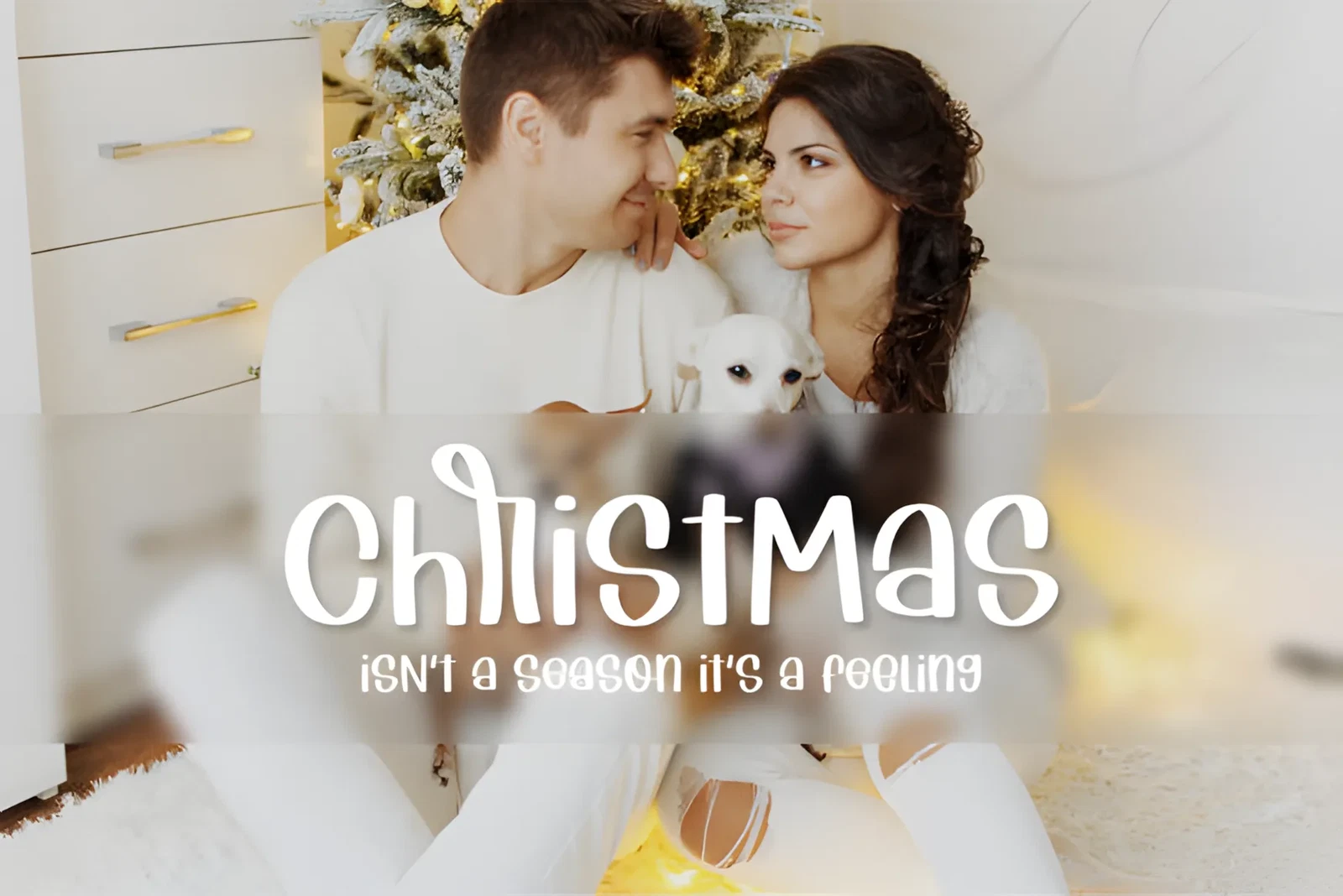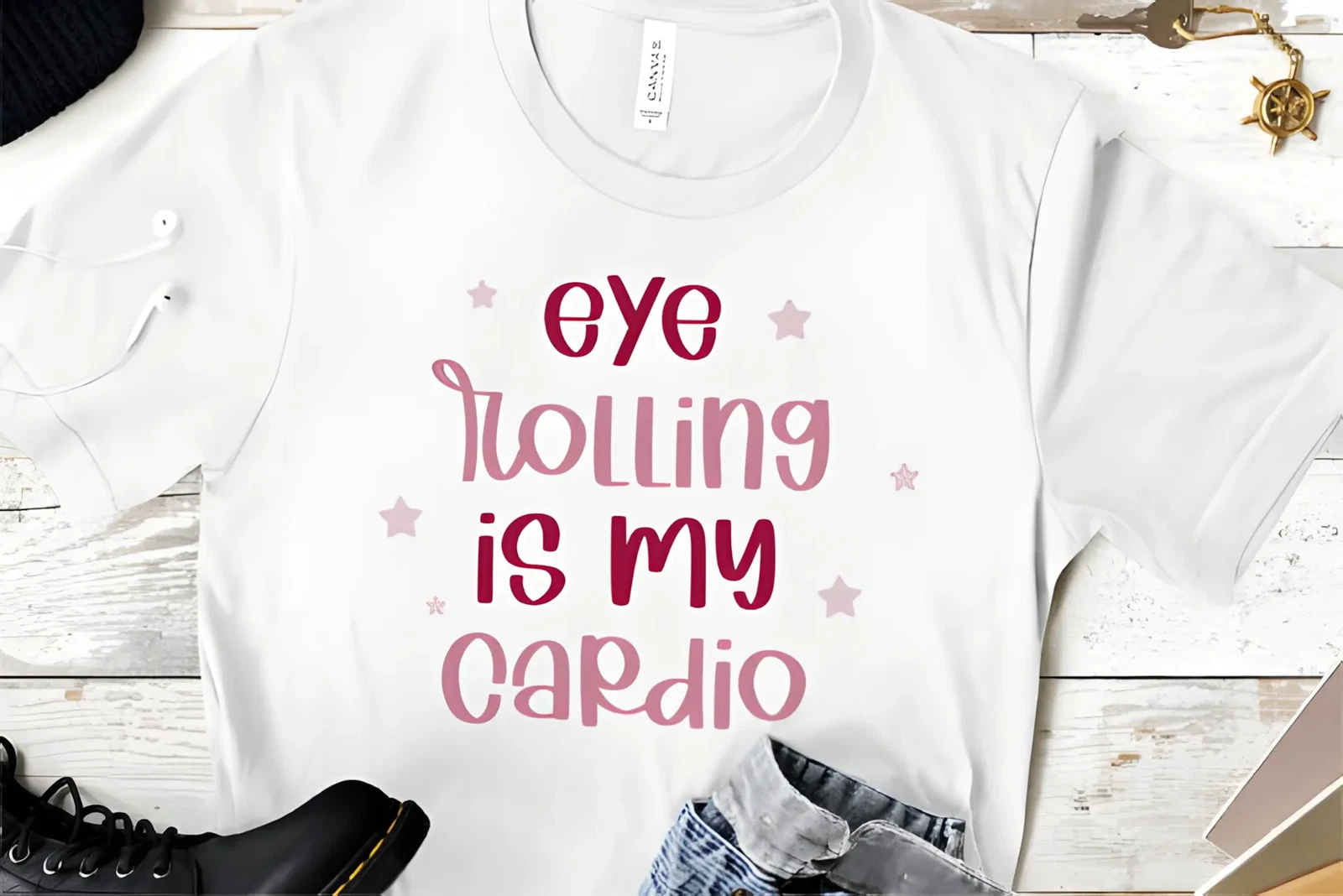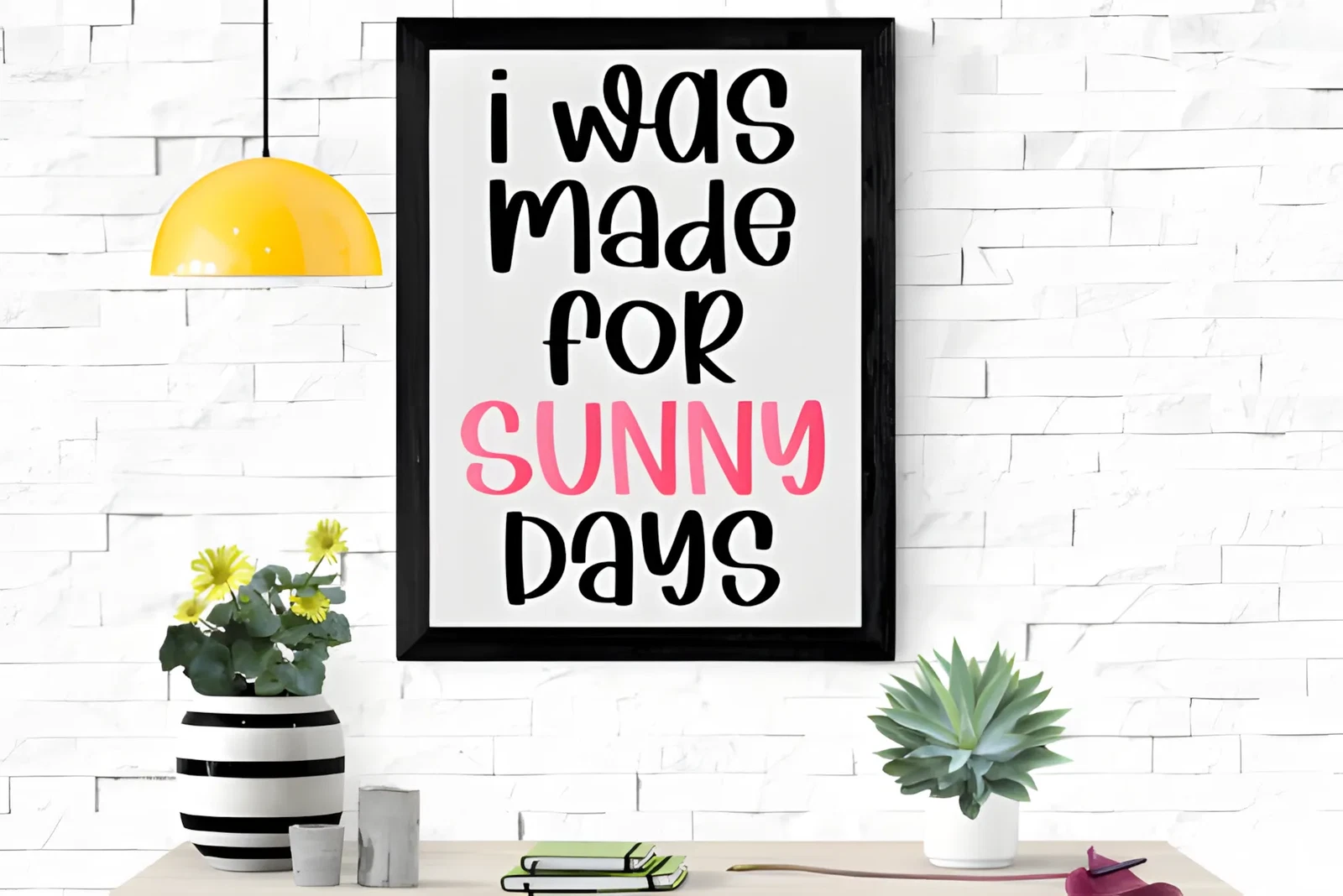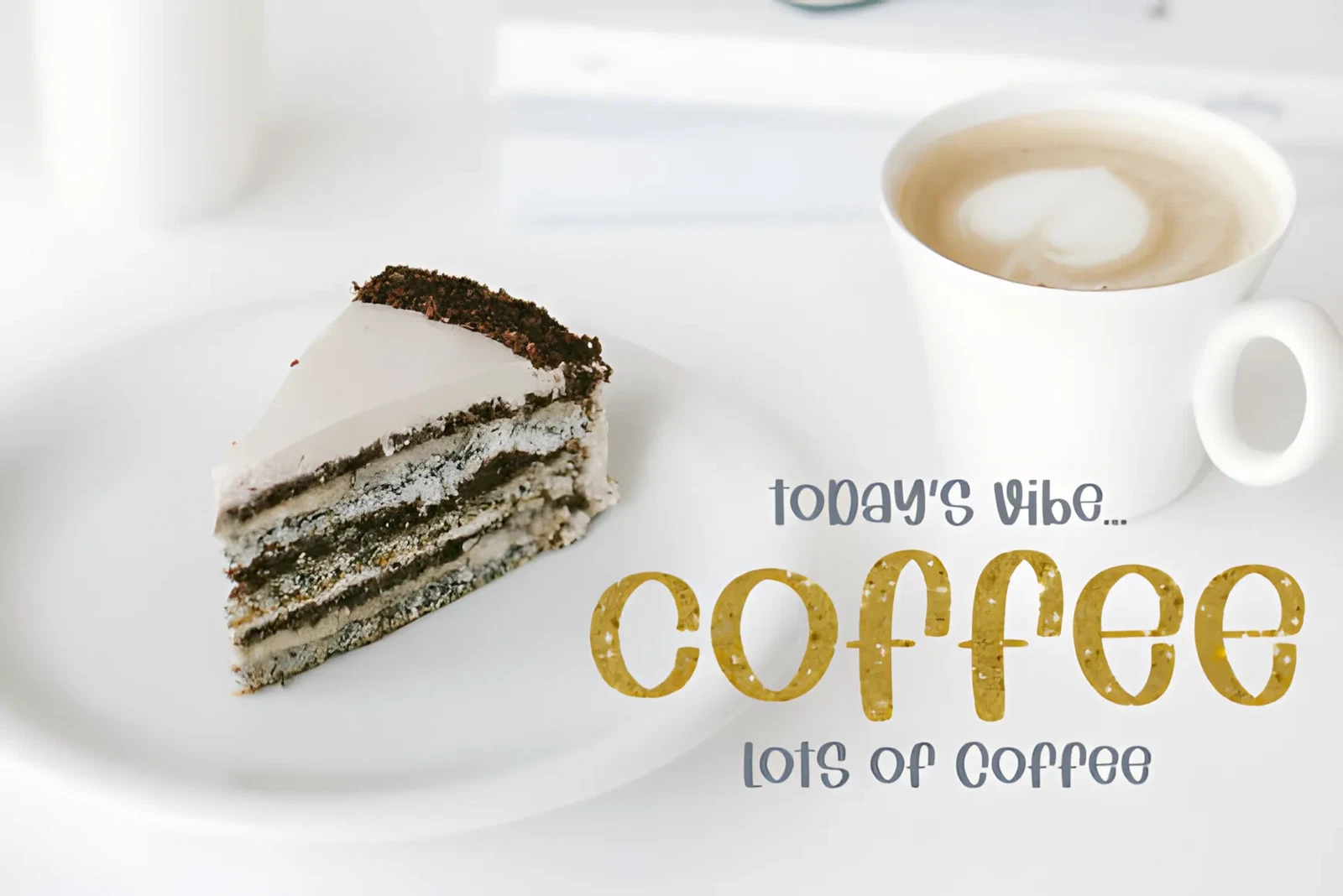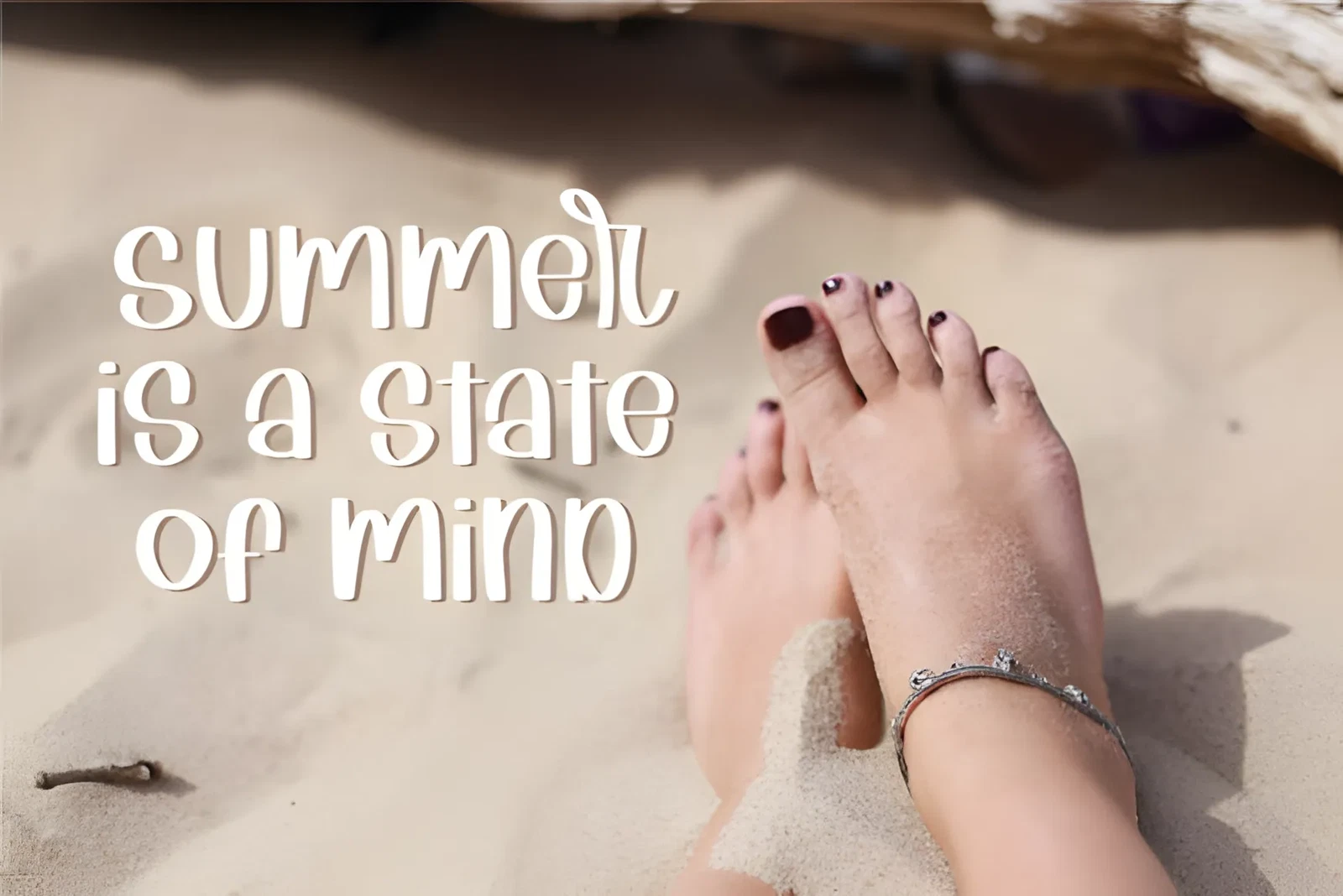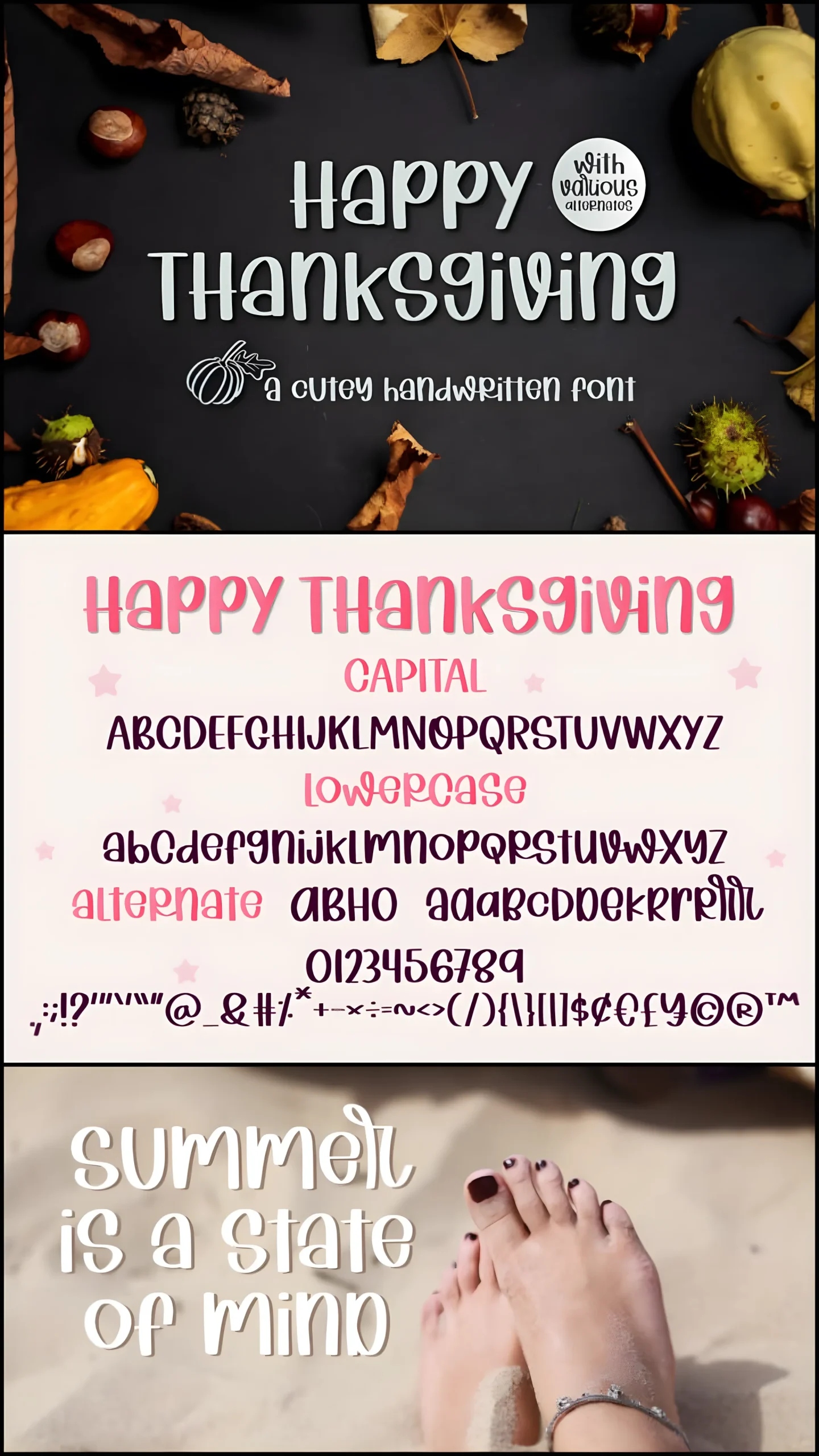
Some seasonal fonts try to look decorative first and readable second. Happy Thanksgiving Font takes the opposite approach. It is a cute and neat handwritten typeface designed to feel natural, friendly, and easy to read while still carrying a clear holiday mood.
The font combines simplicity with personality, making it suitable for a wide range of Thanksgiving and fall-themed projects. Its handwritten style feels warm and personal, as if each word was written by hand rather than generated digitally.
Visual Style and First Impression
Happy Thanksgiving Font immediately feels approachable. The letterforms are clean, slightly playful, and carefully balanced. There is a natural handwritten flow that gives the text a casual and friendly appearance without looking messy or rushed.
One of the most noticeable features is the mix of uppercase and lowercase letters, which adds rhythm and charm to the typography. This variation makes words feel lively and organic, helping designs feel more personal and less rigid.
The overall look is neat, soft, and welcoming — perfect for seasonal designs that aim to feel heartfelt rather than formal.
A Handwritten Font With Natural Character
This typeface was designed to feel handwritten but still controlled. The strokes are consistent, and the spacing is well-balanced, which helps maintain readability across different sizes.
Because of this balance, Happy Thanksgiving Font works well in both digital and print designs. It doesn’t rely on heavy decoration or complex details. Instead, its charm comes from its simplicity and natural style.
The font feels authentic and versatile, making it easy to reuse across multiple projects without feeling repetitive.
Designed for Thanksgiving and Fall Projects
Happy Thanksgiving Font fits naturally into fall and holiday-themed designs. It works especially well in projects related to:
- Thanksgiving celebrations
- fall seasonal content
- family gatherings
- cozy, farmhouse-style designs
The handwritten style reinforces themes of warmth, gratitude, and togetherness, which are central to Thanksgiving visuals.
Practical Design Applications
Invitations and Greeting Cards
One of the strongest use cases for Happy Thanksgiving Font is invitations and greeting cards. The friendly handwritten style makes messages feel personal and sincere.
It works well for:
- Thanksgiving dinner invitations
- holiday greeting cards
- printable seasonal messages
The font adds warmth without overpowering the design, allowing the message to remain the focus.
Craft, Cricut, and Sublimation Projects
It performs well in:
- vinyl designs
- sublimation projects
- t-shirt graphics
- mugs and home décor
The clean letterforms cut smoothly and remain readable on physical products.
Branding and Packaging
Because of its neat and friendly style, this font can also be used in small-scale branding and packaging. It fits well in:
- blogger branding
- handmade product labels
- packaging designs
- seasonal promotions
The handwritten look adds authenticity and approachability to brand visuals.
Digital and Social Media Content
On digital platforms, Happy Thanksgiving Font remains clear and readable. It works well for:
- social media posts
- seasonal banners
- digital cards
- blog graphics
The font’s simplicity helps text stand out without competing with images or backgrounds.
Readability and Usage Notes
Happy Thanksgiving Font is a display and script-style font best used in short to medium-length text. It performs especially well in:
- titles
- headlines
- short messages
For long paragraphs, pairing it with a clean sans-serif font helps maintain comfort and balance. Spacing is already well-handled, which makes the font easy to work with even for beginners.
Emotional Tone and Design Feel
The emotional tone of Happy Thanksgiving Font is warm, friendly, and sincere. It feels welcoming rather than playful or exaggerated.
This makes it ideal for designs that aim to communicate:
- gratitude
- warmth
- friendliness
- personal connection
The font supports messages that feel genuine and heartfelt, which is especially important for holiday designs.
- friendly digital content
It is not intended for long-form reading, but as a handwritten display font, it performs exactly as designed.
Happy Thanksgiving Font proves that simplicity can be powerful. With its neat handwritten style and natural character, it brings warmth and clarity into seasonal typography.
For creators looking for a font that feels friendly, readable, and genuinely personal, Happy Thanksgiving Font offers a reliable solution. Used thoughtfully, it helps designs communicate gratitude and togetherness in a way that feels authentic and inviting.